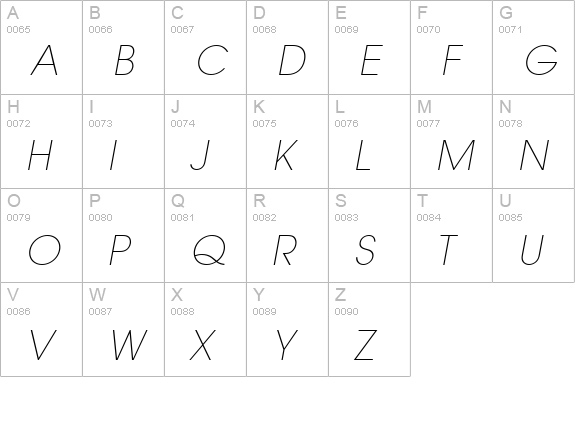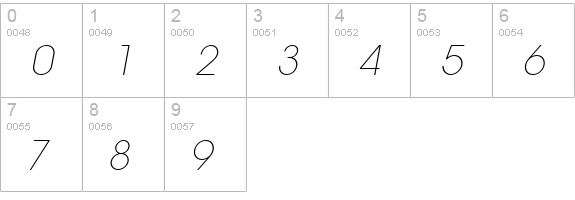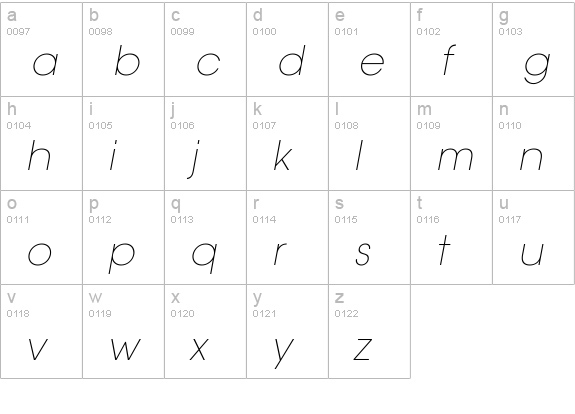
Trendex Light SSi Extra Light Italic is a refined, elegant, italic variant in the Trendex typeface family \xE2\x80\x94 well suited to elegant body text, refined sub-headings, and luxury branding.
Trendex Light SSi Extra Light Italic font is a delightful and graceful typeface that exudes elegance and sophistication. Its slender strokes and delicate curves create a sense of lightness and refinement, making it perfect for projects that require a touch of subtlety and finesse. This font boasts a unique blend of modern and traditional elements, resulting in a design that is both contemporary and timeless. The extra light weight adds an ethereal quality to the text, making it appear weightless and effortlessly stylish. Trendex Light SSi Extra Light Italic font is perfect for a wide range of applications, including editorial design, branding, packaging, and advertising. Its versatility allows it to seamlessly adapt to various design styles, whether it's used for a fashion magazine, a high-end beauty brand, or an upscale restaurant. One of the best features of this font is that it is freely available to download at FontsMarket.com. You can easily access and utilize this beautiful typeface for any personal or commercial project without any cost. This makes it an excellent choice for designers on a budget or those who simply appreciate the value of free resources. With its elegant aesthetics and free availability, Trendex Light SSi Extra Light Italic font is a must-have for any designer looking to elevate their work to a whole new level of sophistication and grace. Download it now from FontsMarket.com and let your creativity soar with this stunning typeface.